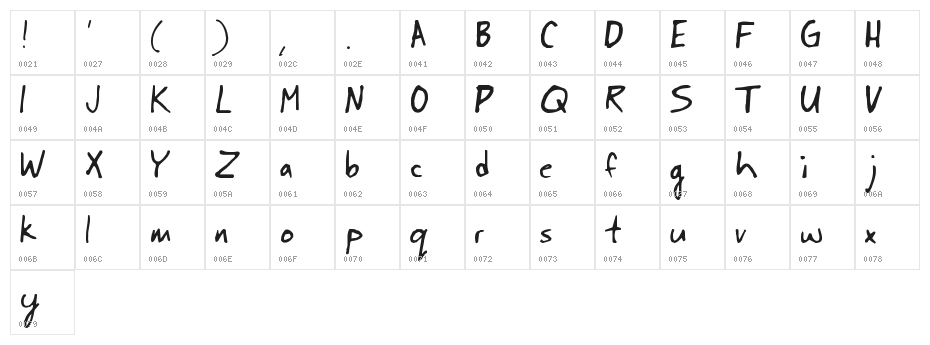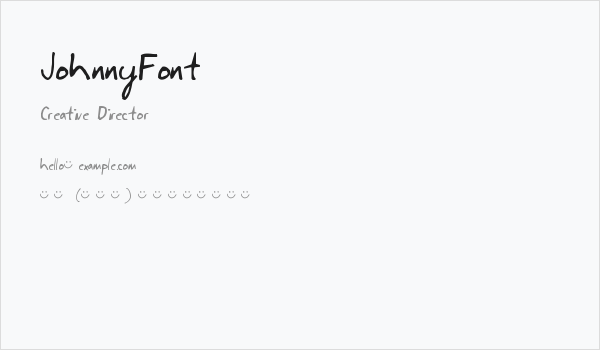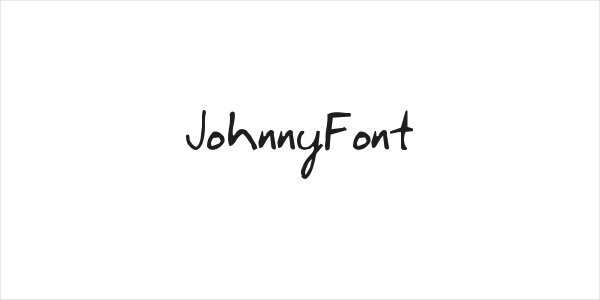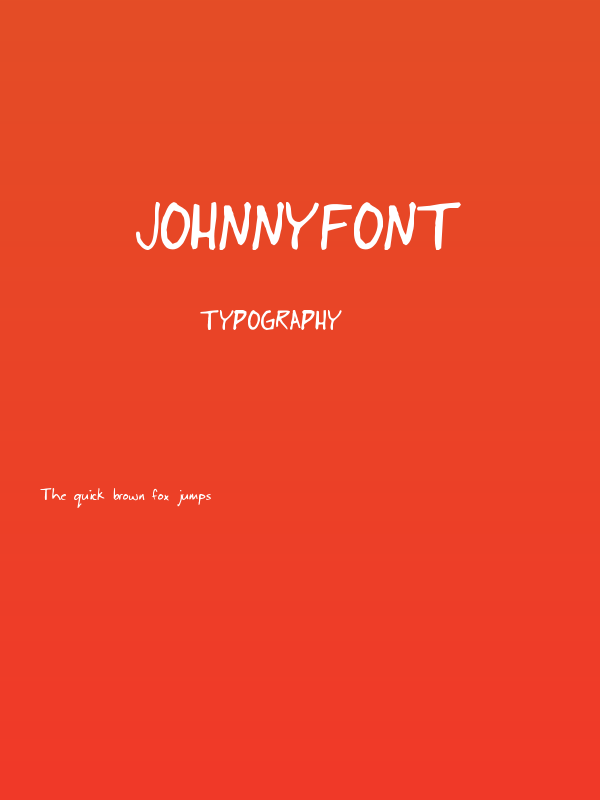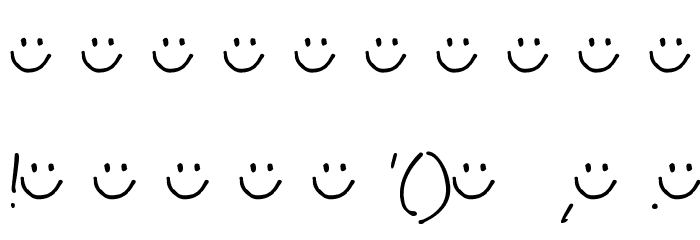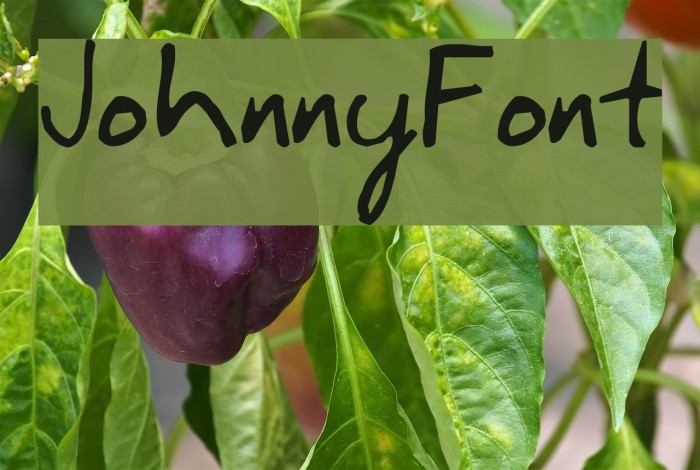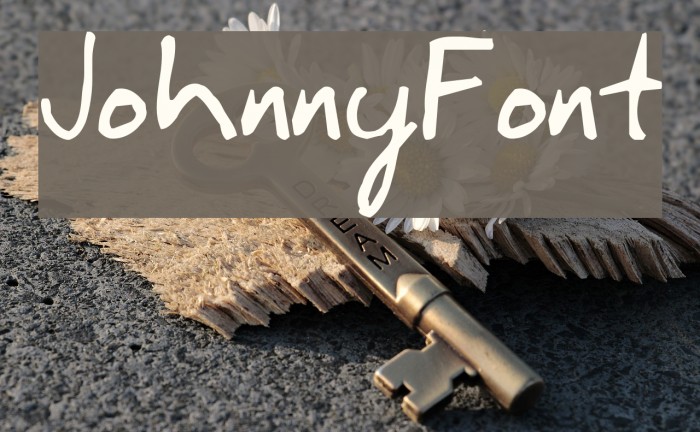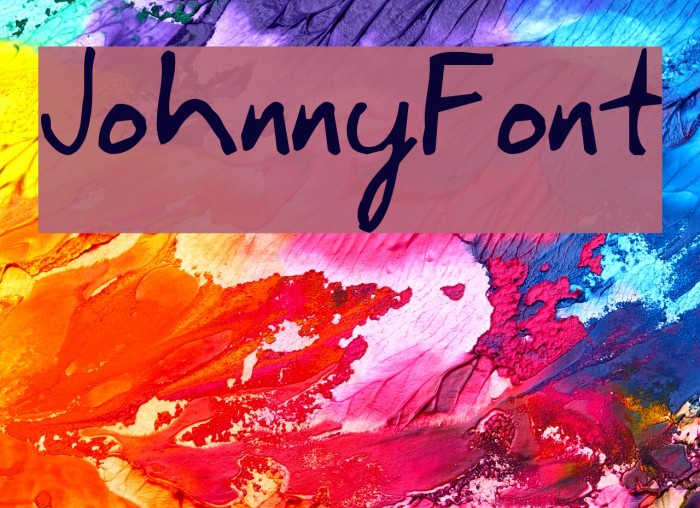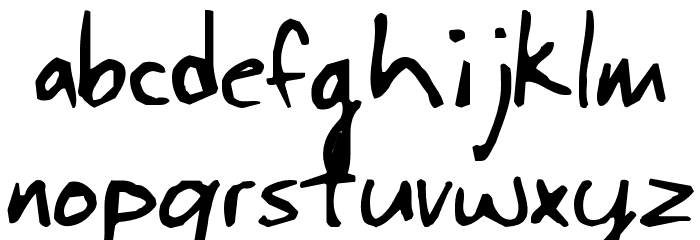
JohnnyFont Font
JohnnyFont Description
This font exhibits a playful and informal handwritten style, characterized by its uneven strokes and casual appearance. The letters are slightly irregular, adding a personal touch that mimics natural handwriting. The uppercase and lowercase letters maintain a consistent style, with rounded edges and a relaxed form. The numbers and special characters follow the same playful theme, making the font suitable for creative and informal projects. The overall aesthetic is friendly and approachable, ideal for designs that require a human touch.
| Overall Style | Casual, Playful |
| Use Case | Headlines, Informal text, Creative projects |
| Proposed Projects | Ideal for greeting cards, children's books, informal invitations, and playful branding. |